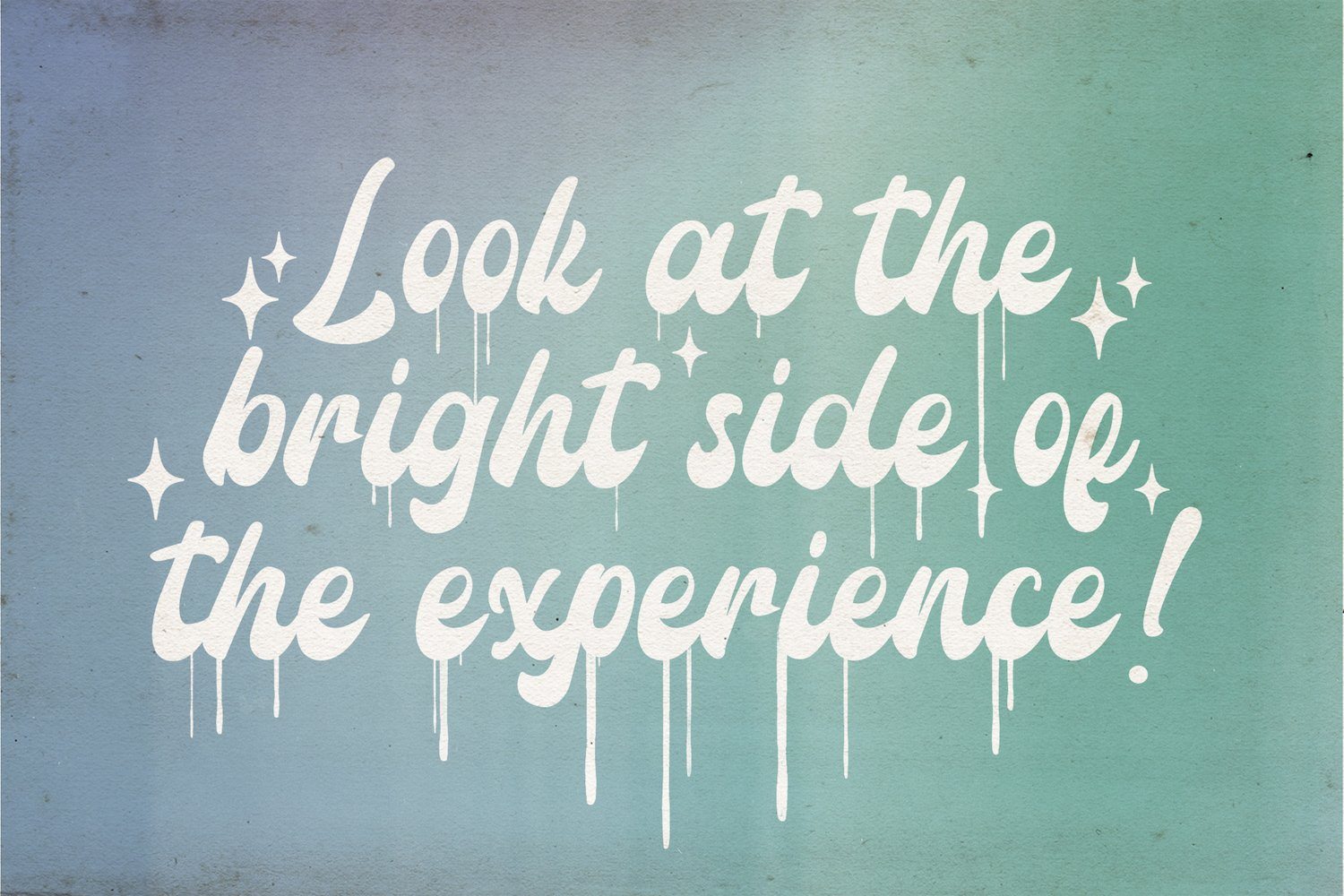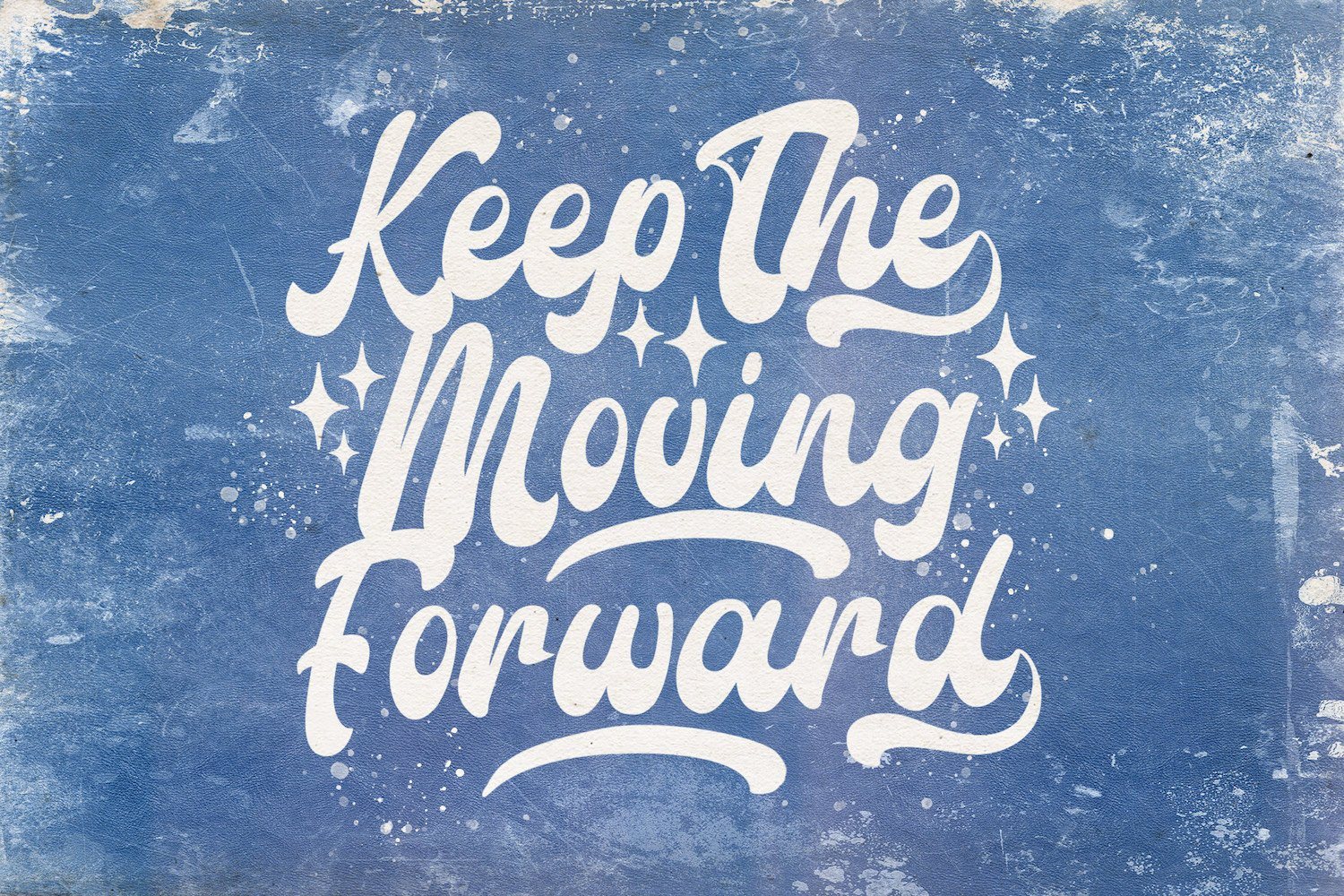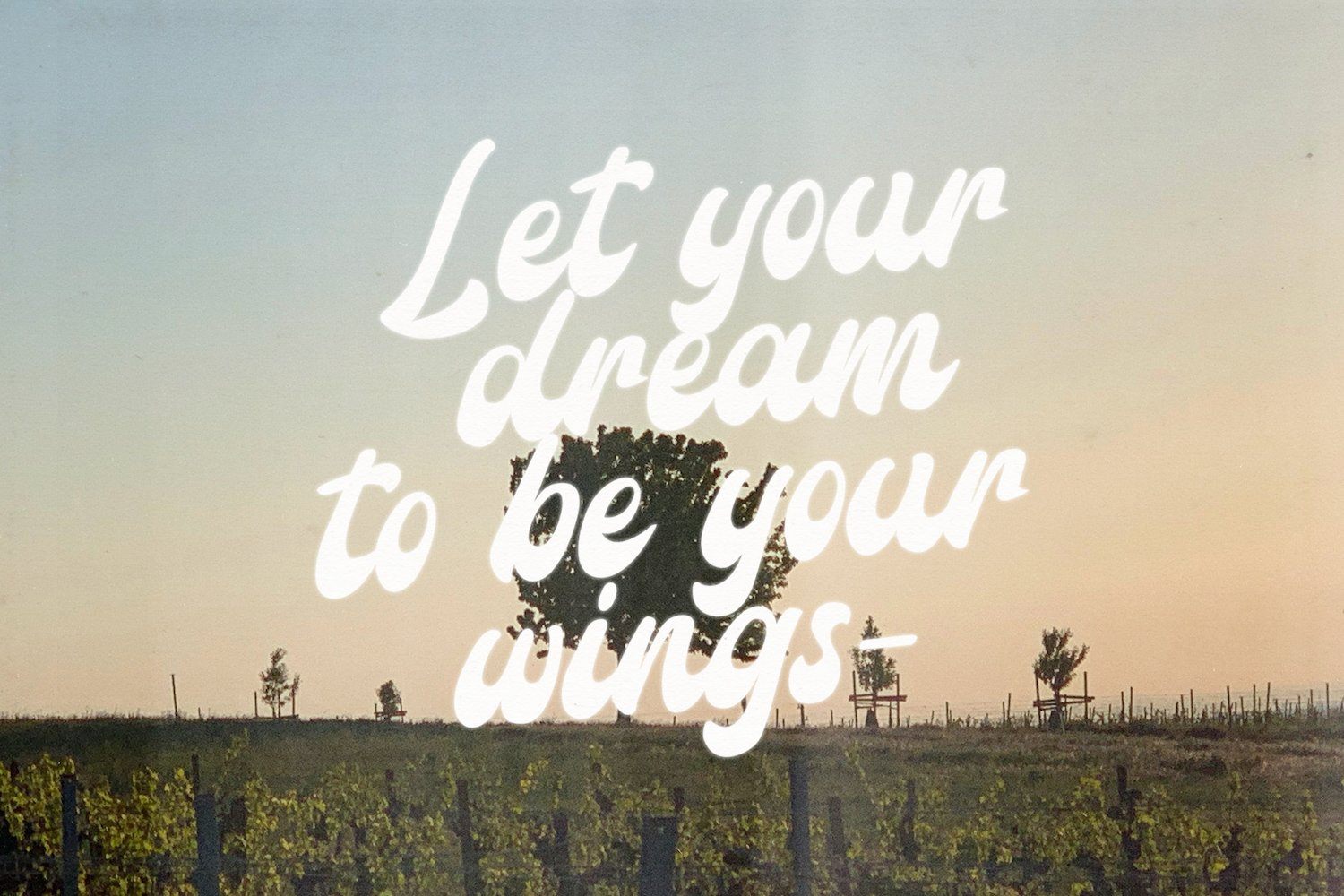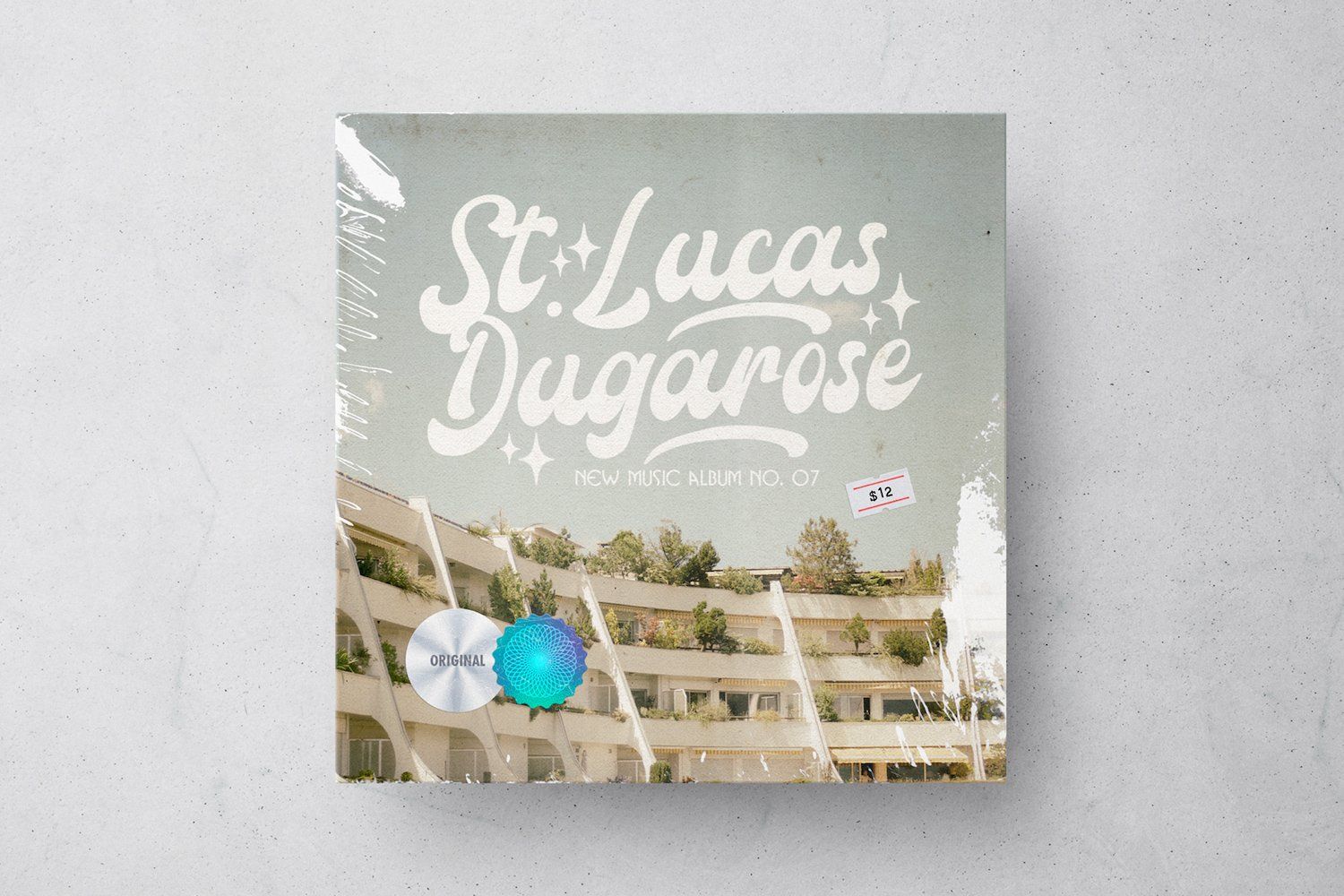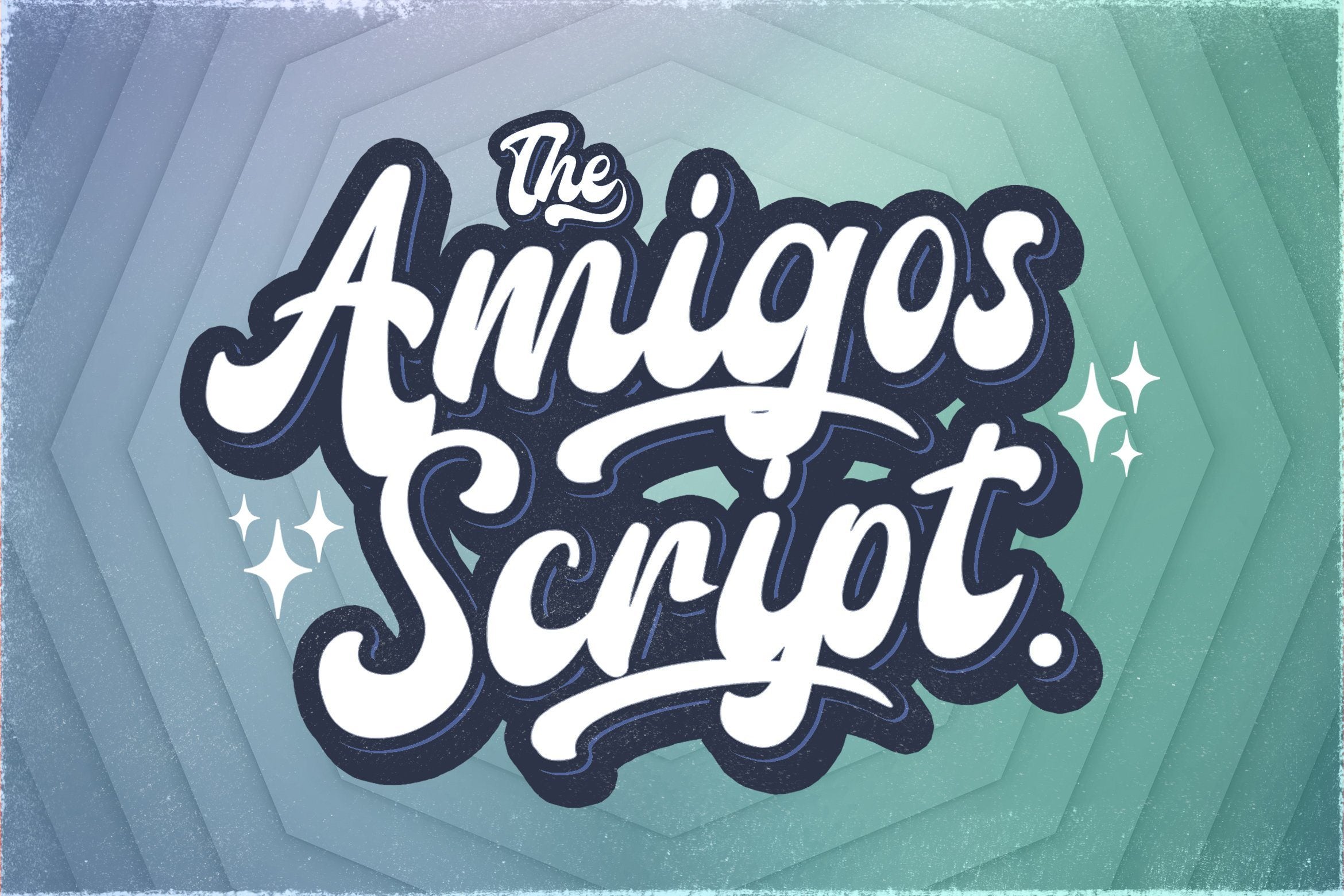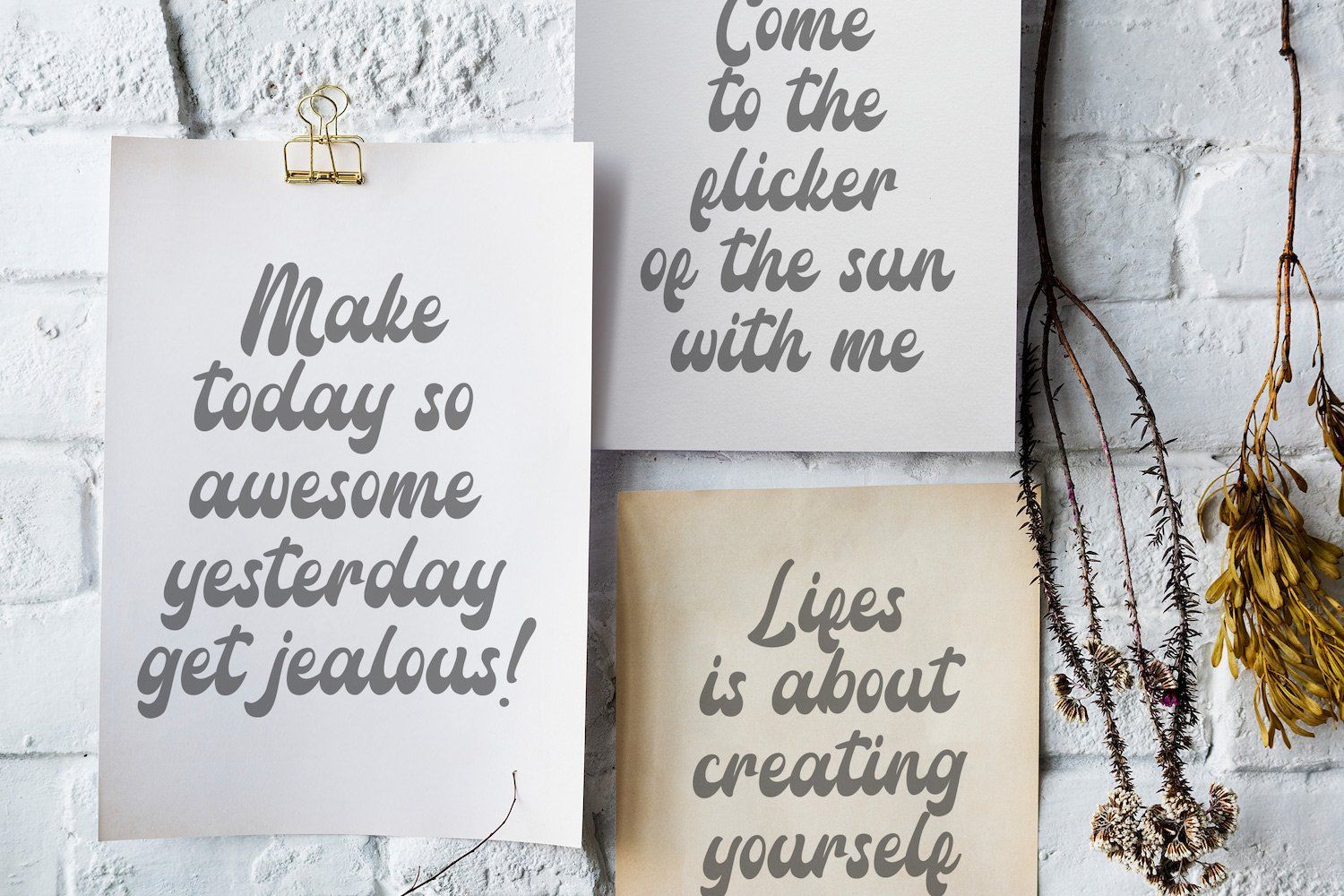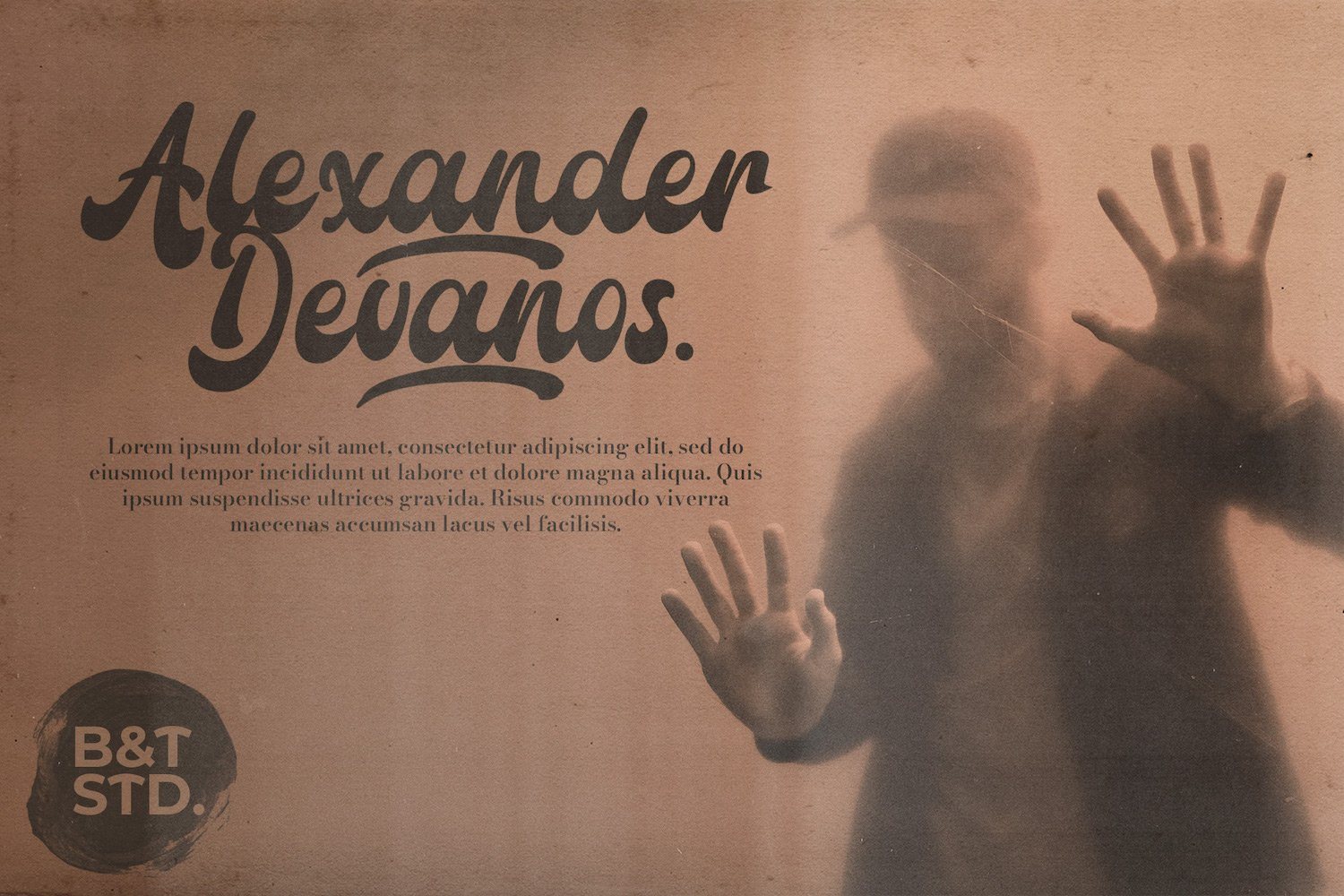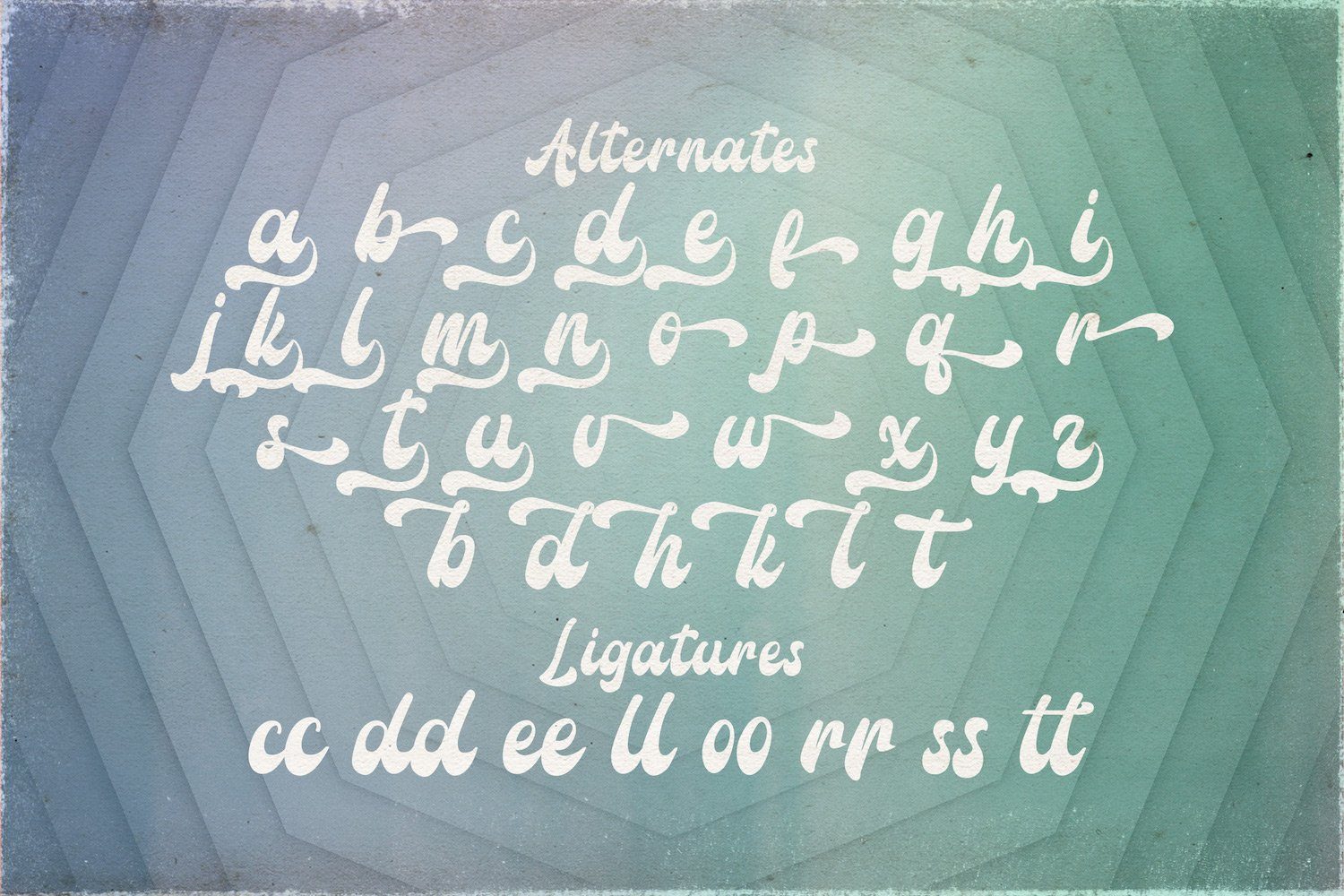
Amigos Script – Retro Bold Script Font
About Amigos Script – Retro Bold Script Font
Introducing Amigos Script – Retro Bold Script Font Amigos Script is a strong and bold script font. It is curved, rounded, and has an unique vintage style, that is perfect for branding. Add it to your most creative ideas and notice how it makes them come alive! FEATURES – TTF/OTF/WOFF/WOFF2 – Stylistic Alternates – Ligatures – Uppercase and Lowercase letters – Numbering and Punctuations – Multilingual Support – Works on PC or Mac – Simple Installation – Support Adobe Illustrator, Adobe Photoshop, Adobe InDesign, also works on Microsoft Word Hope you Like it. Thanks.